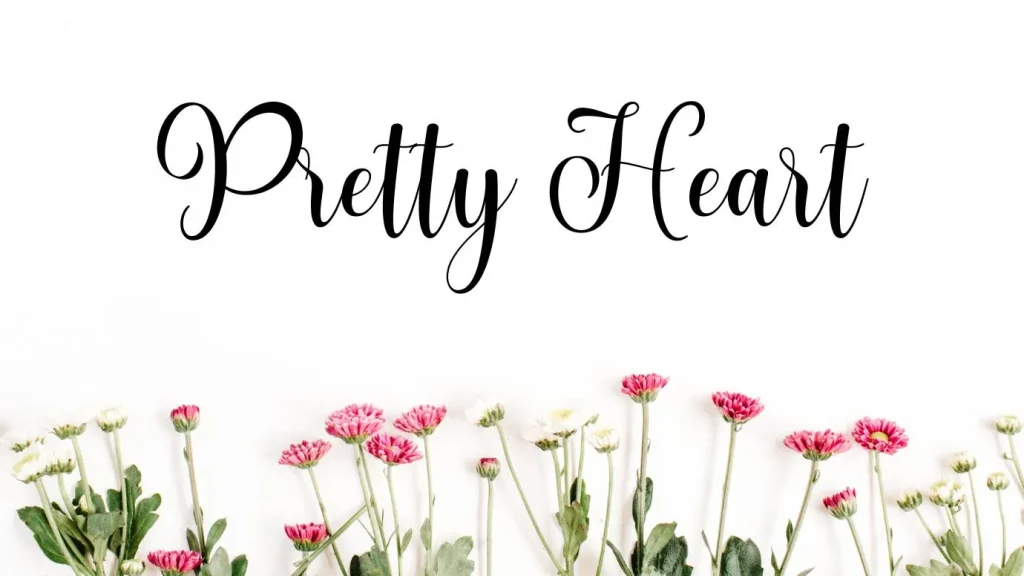
This calligraphy style has stylish and bold designs that make this font popular among designers who want to create amazing designs for their projects. Also, the free version is available as well. Pretty Heart Font is a fantastic typeface that is available for free download from our website, but only for private use.
Description of Pretty Heart Font By ” Zikril lah “
This typeface features a large variety of ligatures, lowercase, and uppercase characters, and capital letters which can give any content to a unique appearance.
Pretty Heart Font Variations
Reasons to Use Pretty Heart Font
This typeface is much famous in the order to create new designs. It has so many characteristics. This stunning typeface may be used for a variety of projects, including greeting cards, postcards, product packaging, book covers, and more. Additionally, you may use this typeface to create digital graphics like website logos.
It can also be used to display the cover of digital textbooks and comics. It is accessible for theme designs and its free. This elegant typeface is used frequently by designers for dynamic artistic work, poster designs, and numerous other design applications.
| Style | Calligraphy |
The style can give your design a more attractive and beautiful look. This font has a smooth and elegant appearance and works well on all computer displays. It is helpful for many designers who want to create graphic designs with effectiveness.